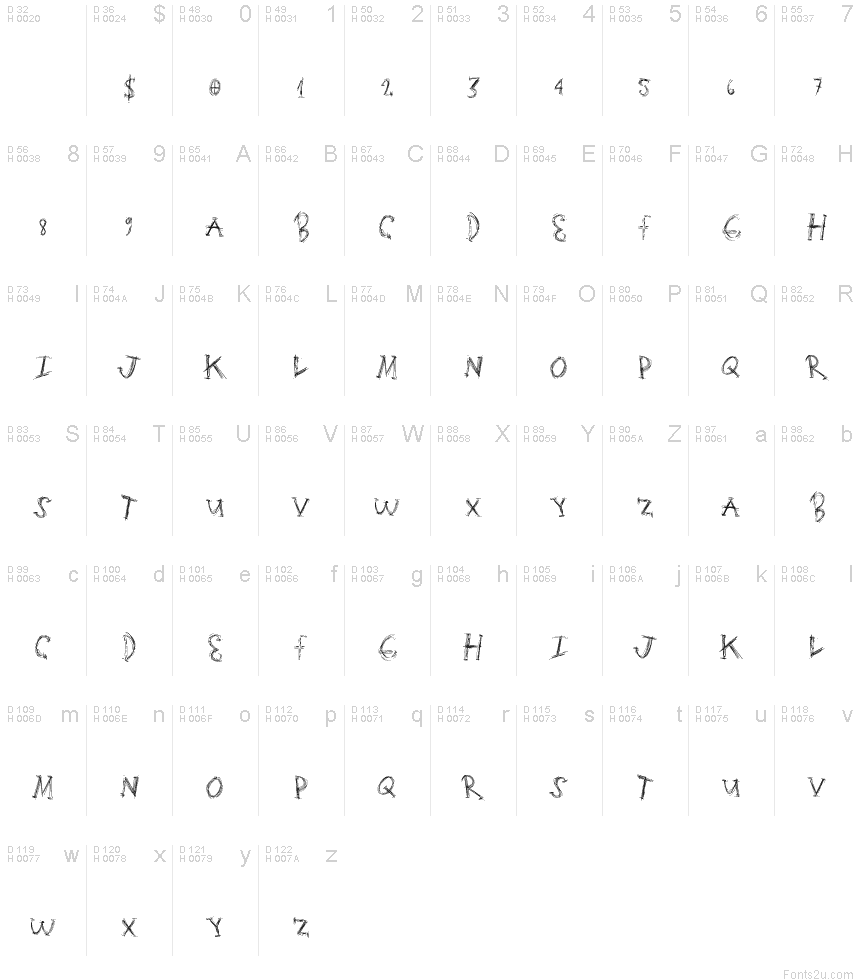
Scratching Matters by Xerographer Fonts is a free trash script with tall skeletal capitals scratched into restless overlapping lines, narrow gaps, and long pointed extensions that jut beyond the main shapes. Its uneven stroke buildup, sharp crossings, abrupt changes in width, and occasional leaning forms make the lettering look raw and deliberately unstable rather than smoothly written.
Album covers are its clearest home. The agitated marks also suit underground concert posters, skate merchandise, horror event graphics, and experimental magazine covers, since their repeated scratches can echo distressed photography, torn paper, photocopied textures, or hand-scrawled artwork.